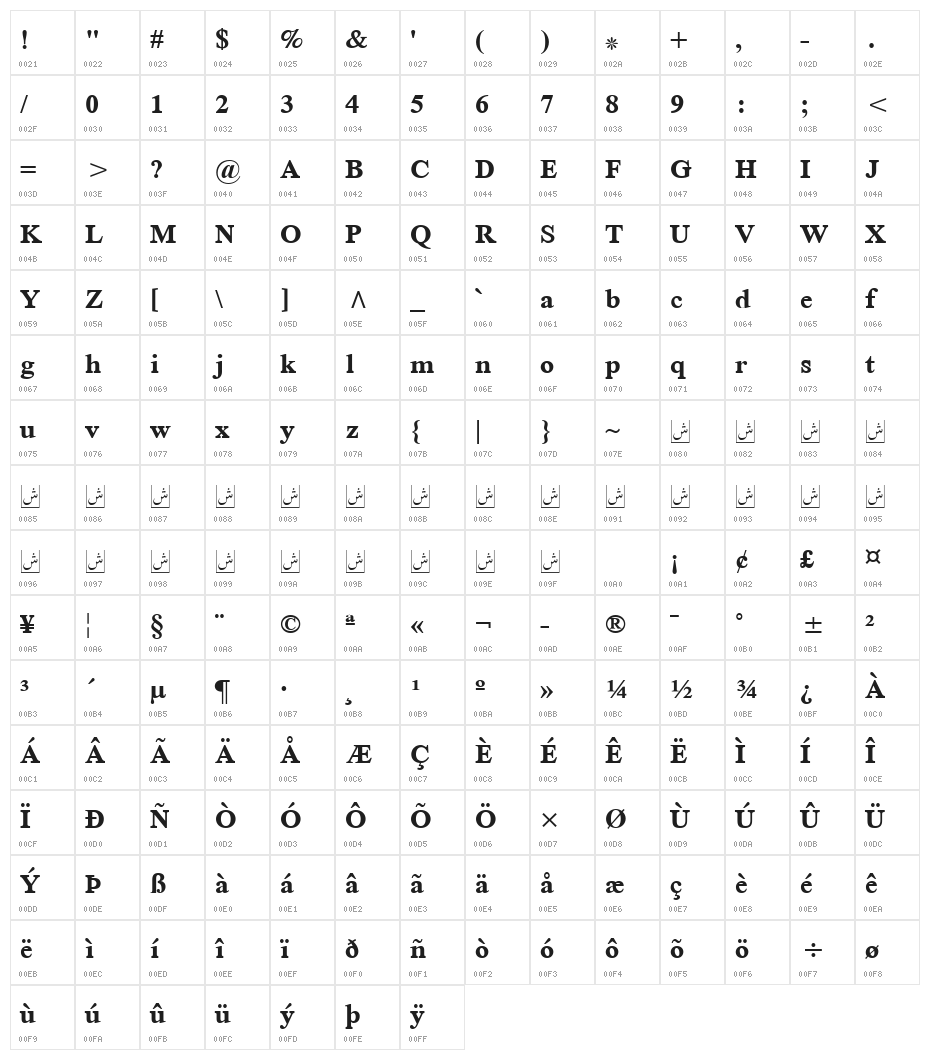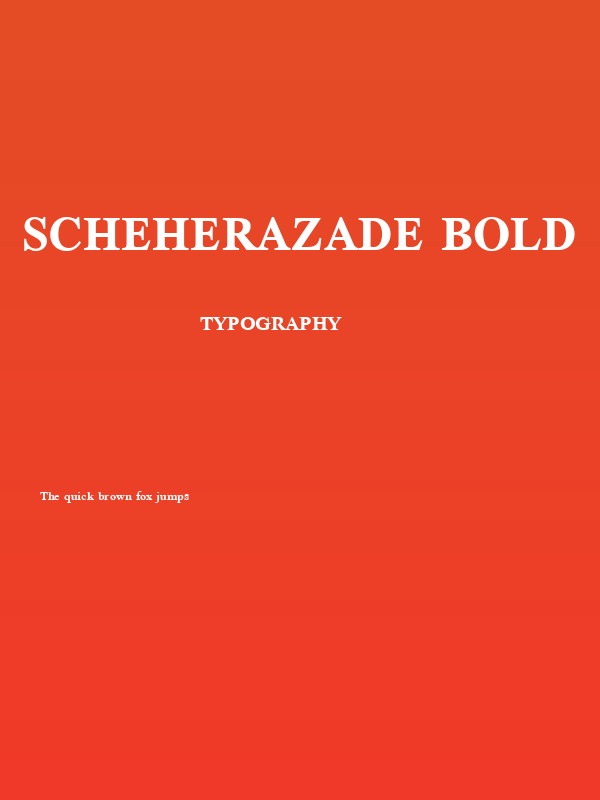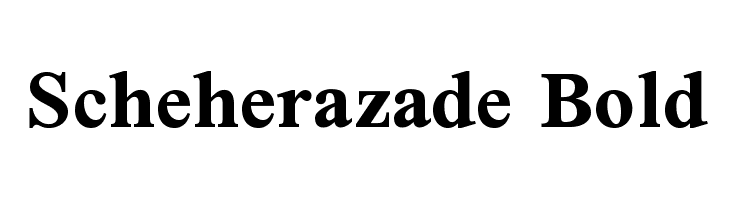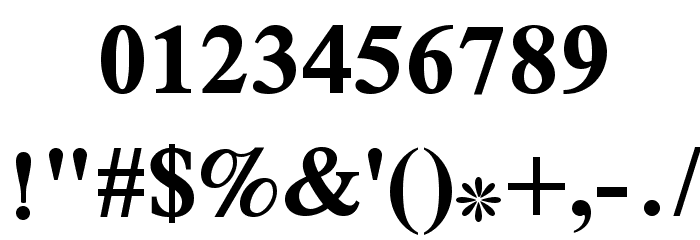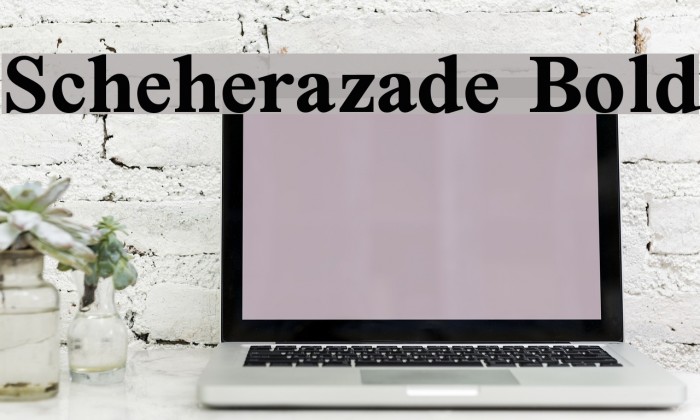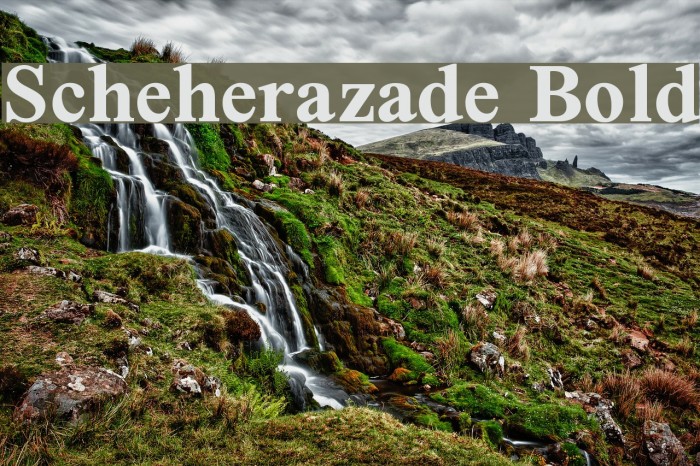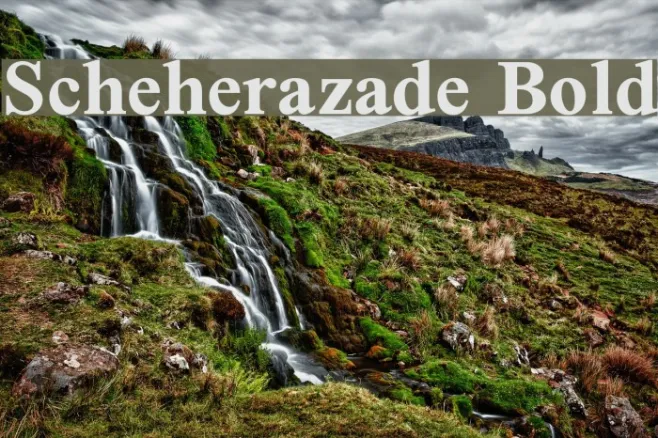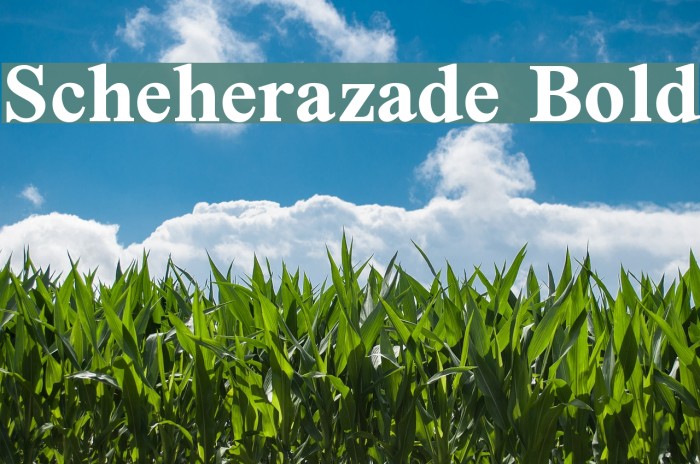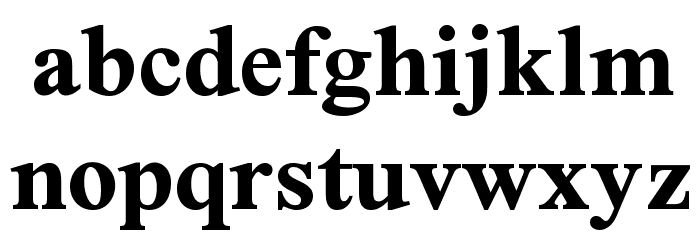
Scheherazade Bold Font
Scheherazade Bold Description
This typeface exhibits a classic serif style with bold, pronounced strokes that convey a sense of tradition and authority. The characters are well-defined with sharp serifs and consistent stroke widths, providing a balanced and readable appearance. The uppercase letters are robust and commanding, while the lowercase letters maintain a harmonious flow. Numerals are clear and distinct, ensuring legibility in various contexts. Special characters are crafted with precision, complementing the overall aesthetic. This font is suitable for projects that require a formal and professional look.